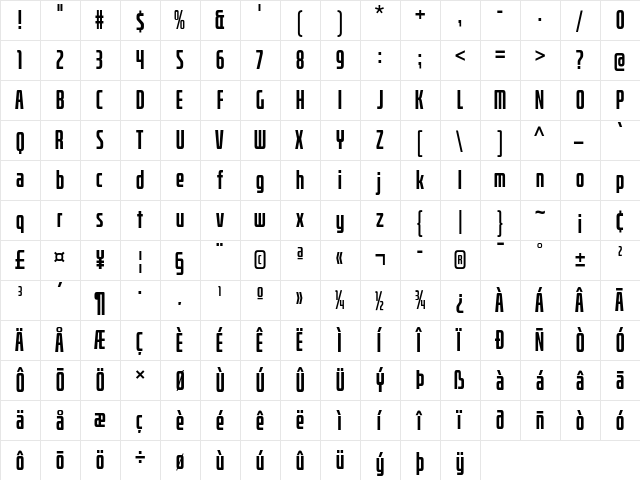
Bitcrusher Condensed Bold
Bitcrusher takes a measured approach to typography — its balanced proportions and neutral character make it a reliable workhorse for both digital and print work. The heavy weight commands attention and anchors typographic hierarchies. The condensed width makes it efficient for tight spaces without sacrificing legibility.